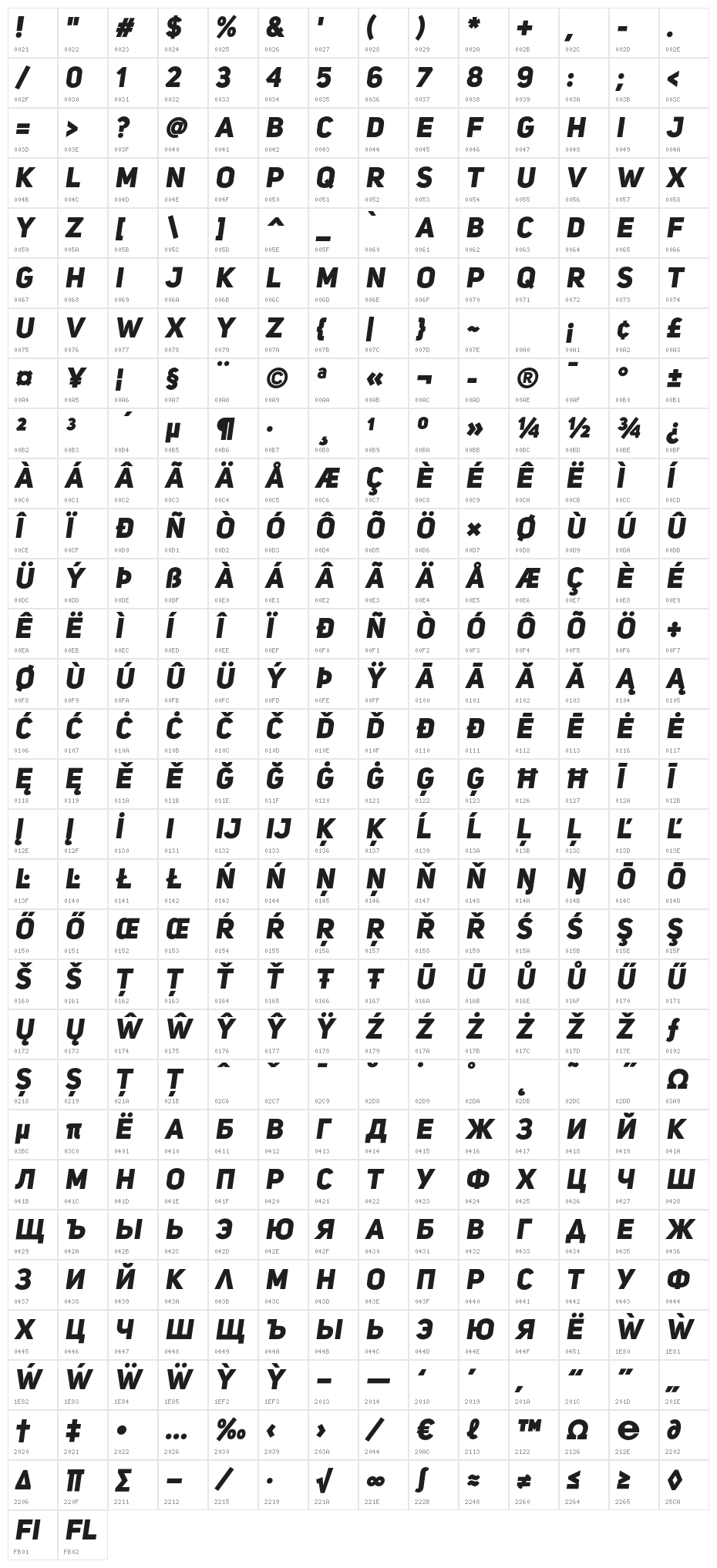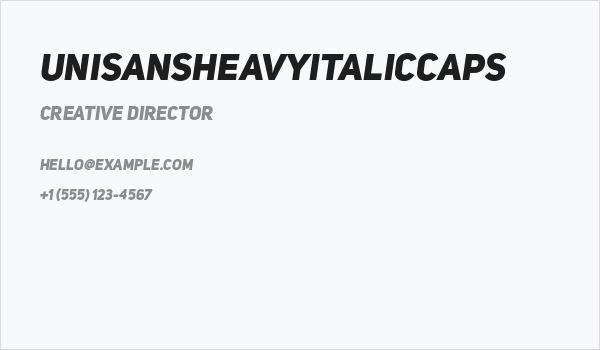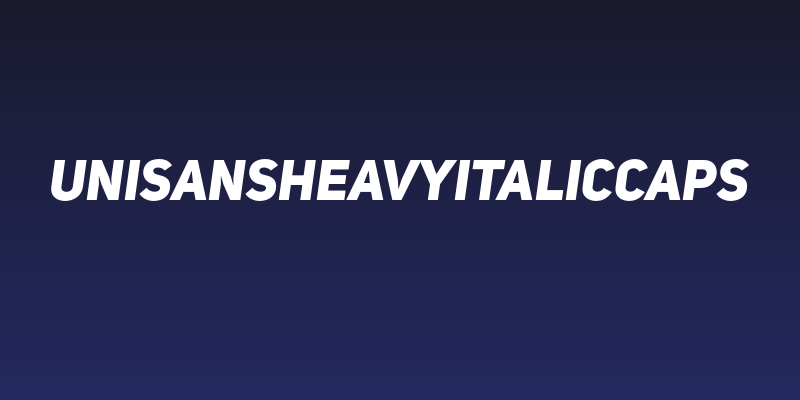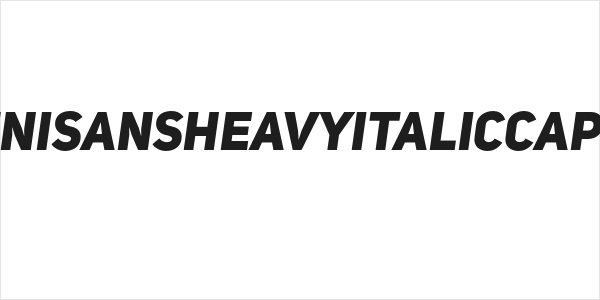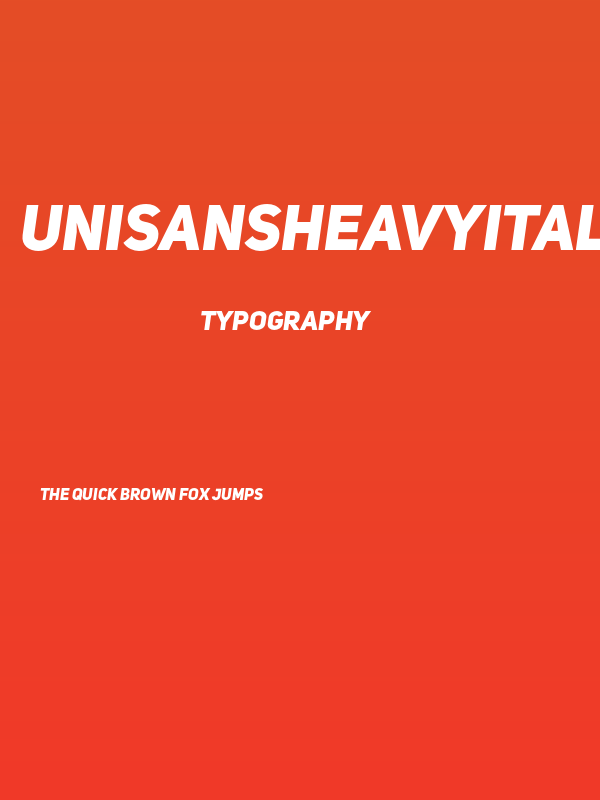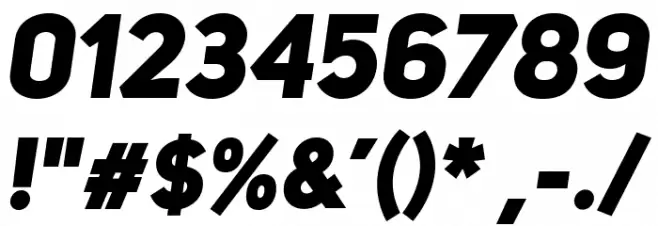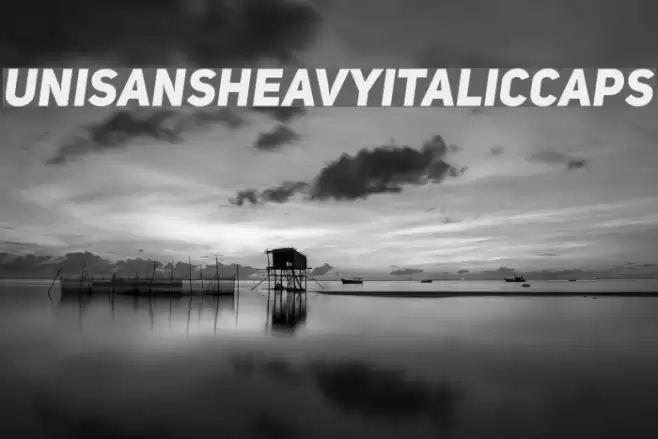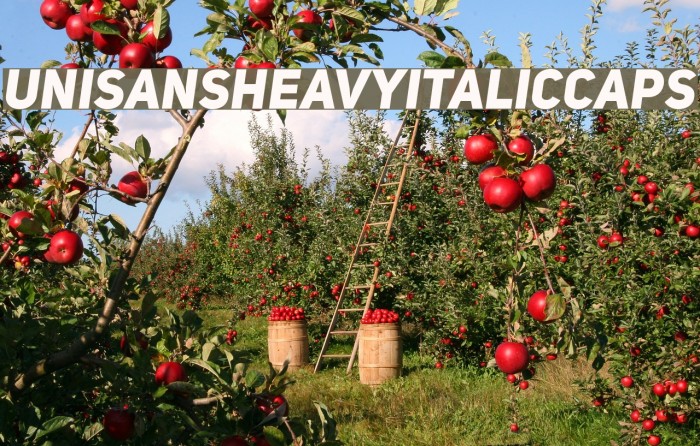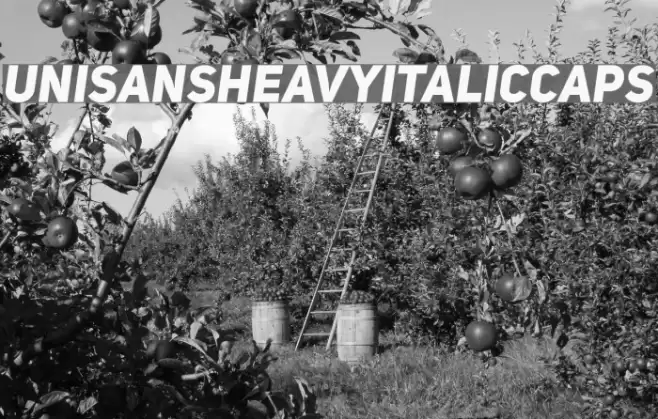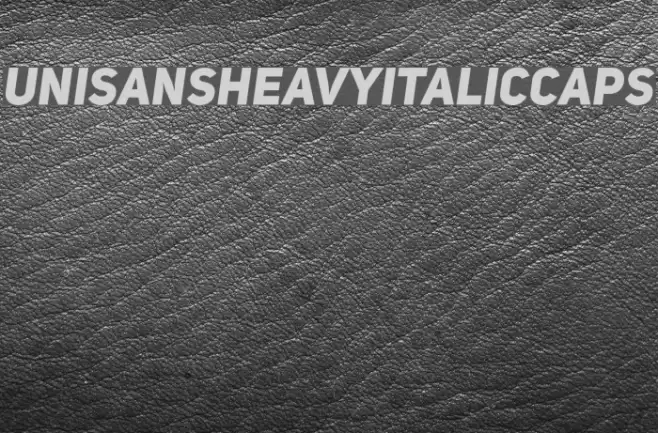
UniSansHeavyItalicCAPS Font
UniSansHeavyItalicCAPS Description
This font is a bold and dynamic sans-serif typeface with a strong italic slant, giving it a sense of movement and urgency. The characters are robust and heavy, making them ideal for impactful headlines and attention-grabbing designs. The uppercase letters are uniform in height, while the numerals are equally bold and clear, ensuring readability. The special characters maintain the same weight and style, providing consistency across all glyphs. The overall design is modern and clean, suitable for a variety of digital and print applications.